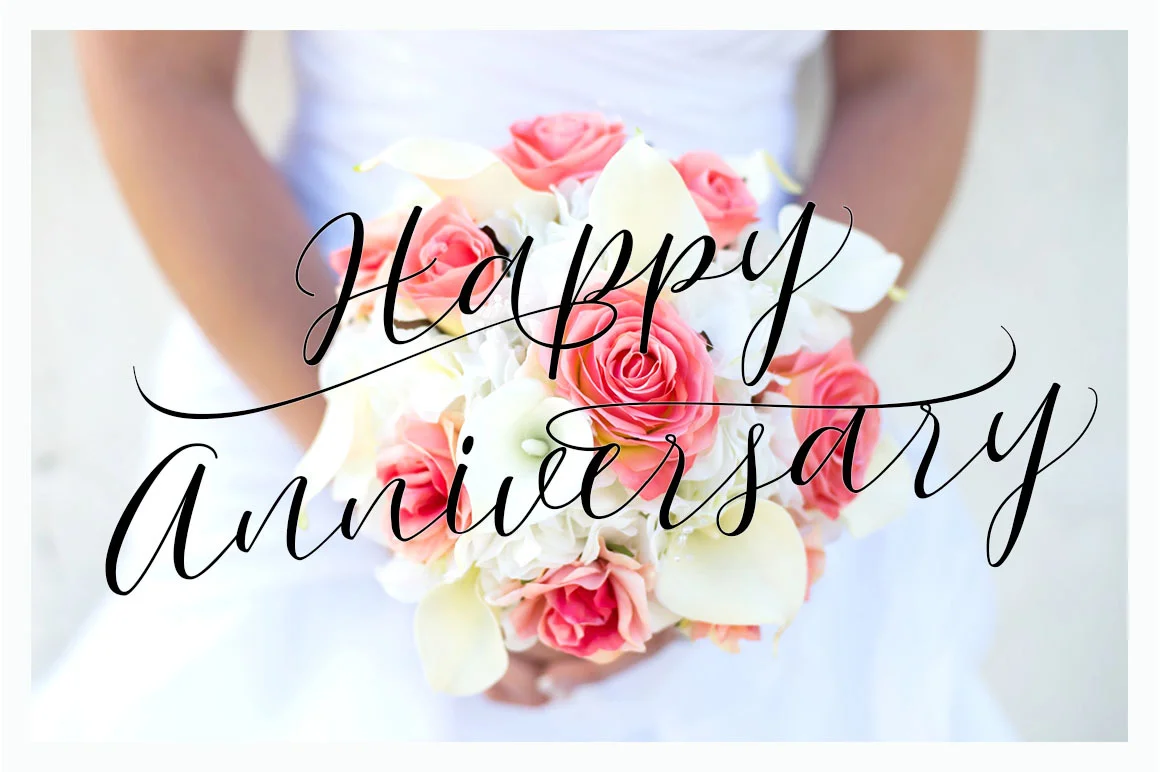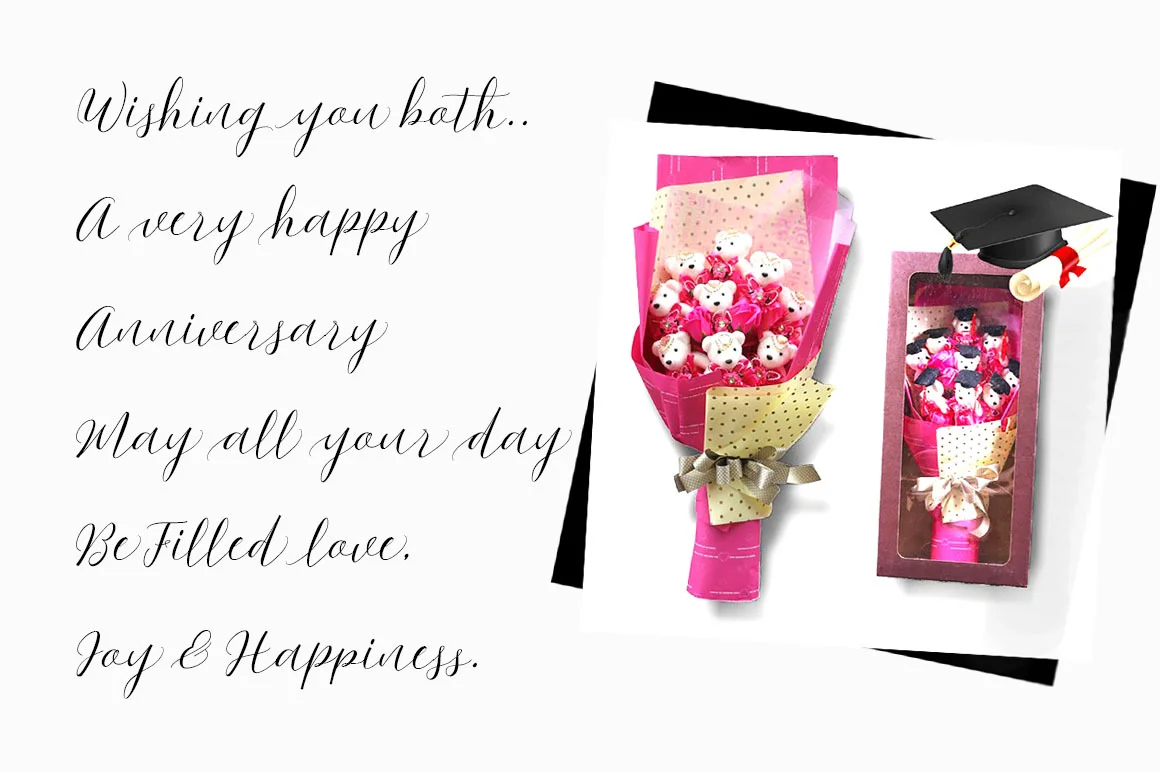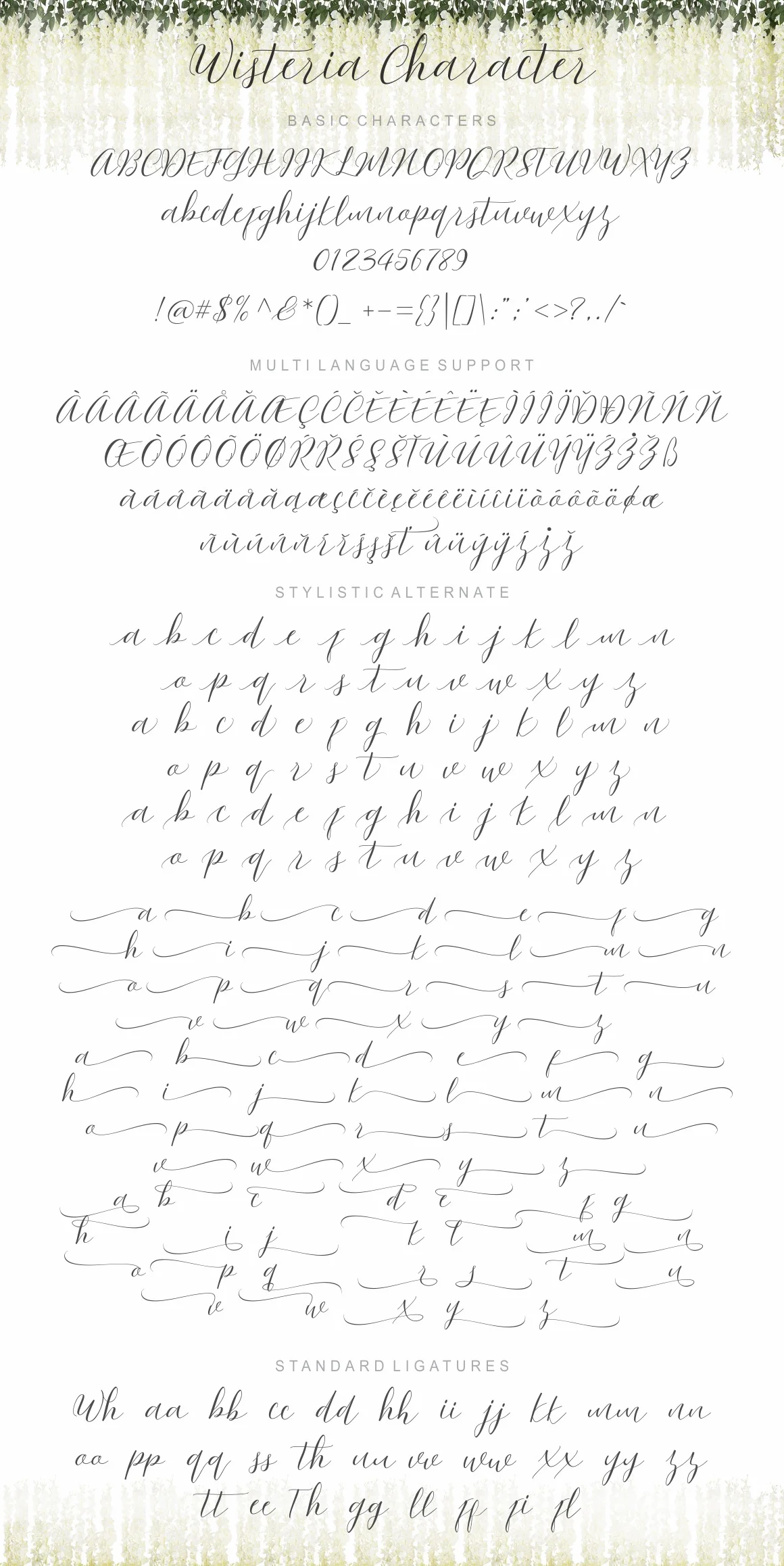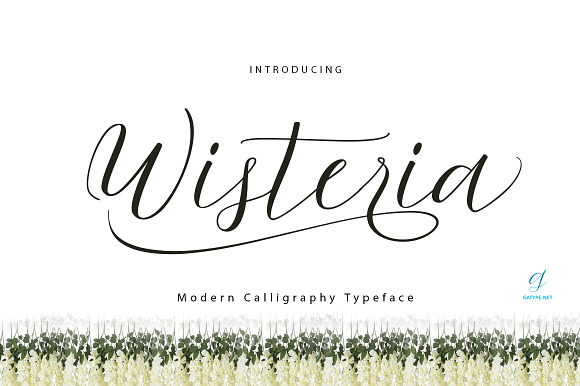
Wisteria Script Font
Typography shapes perception at a subconscious level. Wisteria Script leverages consistent type colour across continuous text to make every composition feel considered. The typeface brings an elegant, calligraphic sensibility to a broad range of creative disciplines, with the kind of restraint that lets content lead that holds up whether the work is print-first or screen-first.
In practice, Wisteria Script proves particularly effective for bridal materials, editorial layouts, environmental graphics, logo design, web design. Designers reaching for it find that the type decisions feel resolved rather than laboured — a useful quality when client timelines are tight.
The range of applications extends to product labels, signage systems, event signage, perfume labels. That breadth is deliberate: the proportions and spacing were stress-tested across a wide range of mock briefs before the typeface was finalised.
The consistent rhythm of Wisteria Script across a full paragraph creates the kind of even grey value that makes extended reading comfortable, a detail that matters more in long-form content than its subtlety might suggest.
In-house creative teams at consumer brands find Wisteria Script a reliable choice for projects that demand both personality and restraint. The design avoids the self-conscious quirkiness that dates quickly, settling instead for considered distinctiveness that holds up over time.